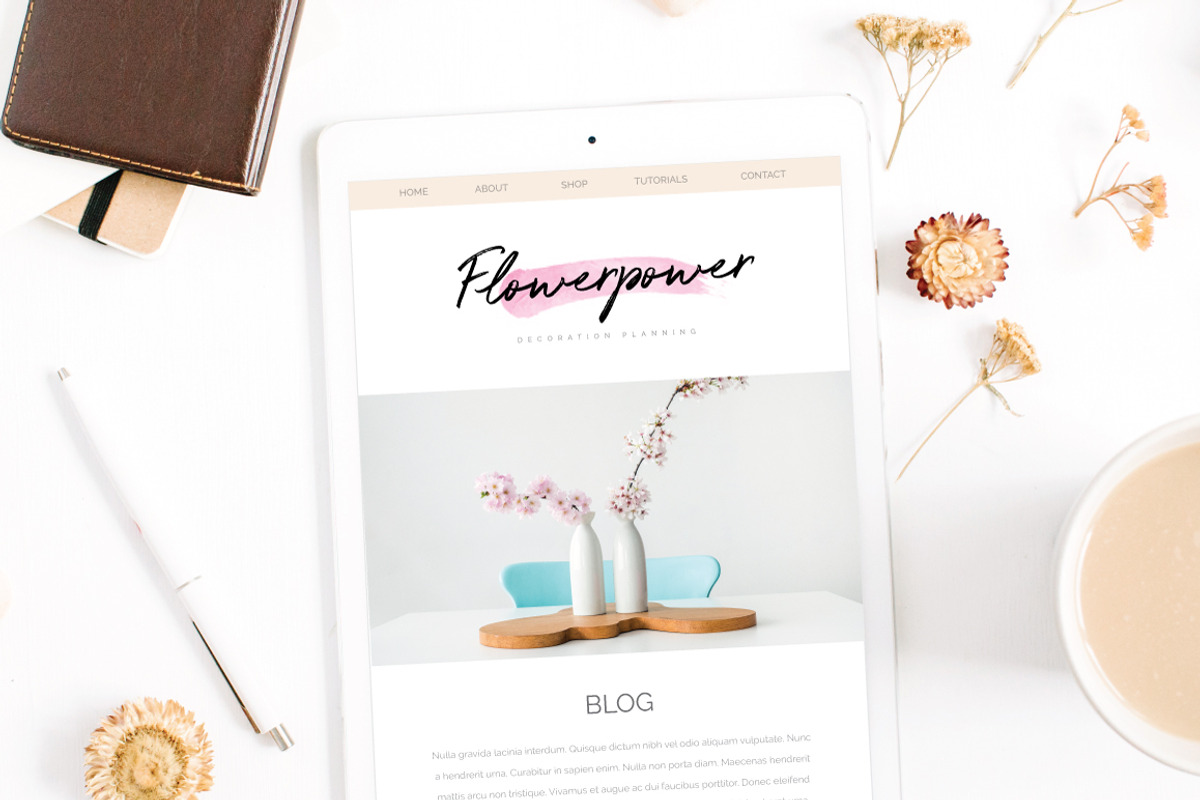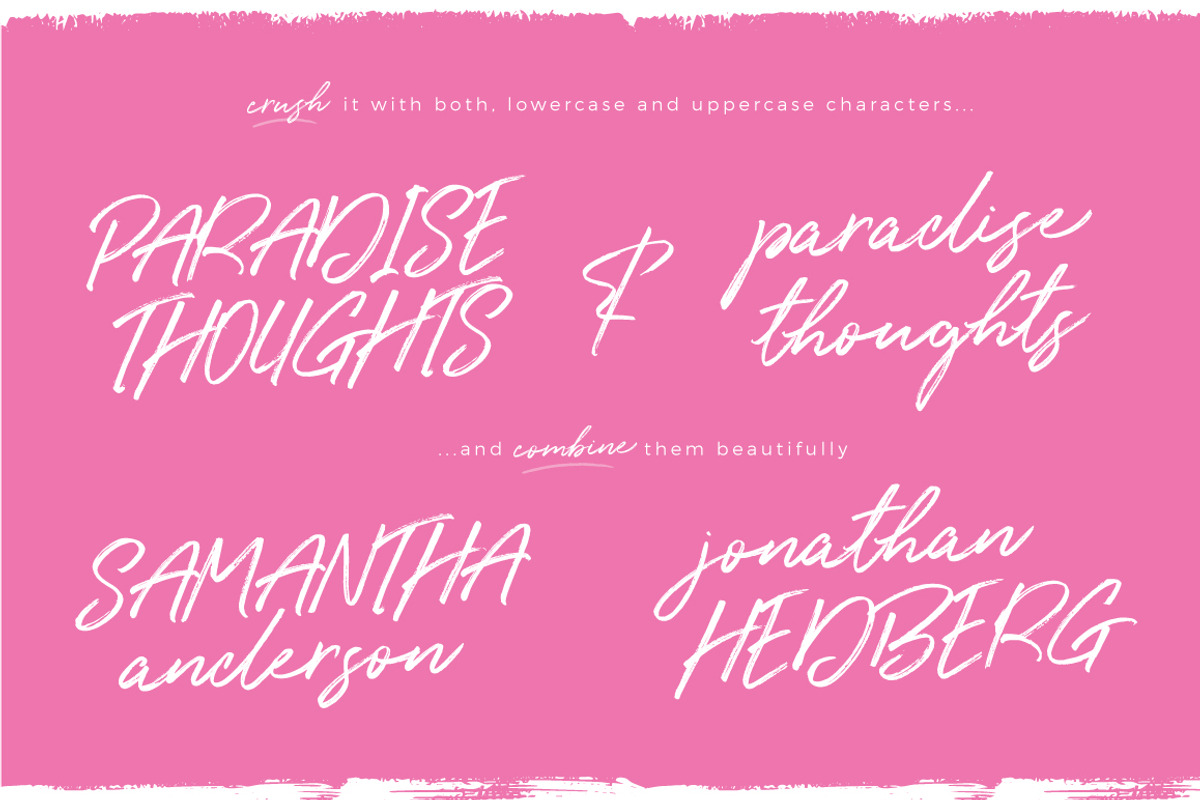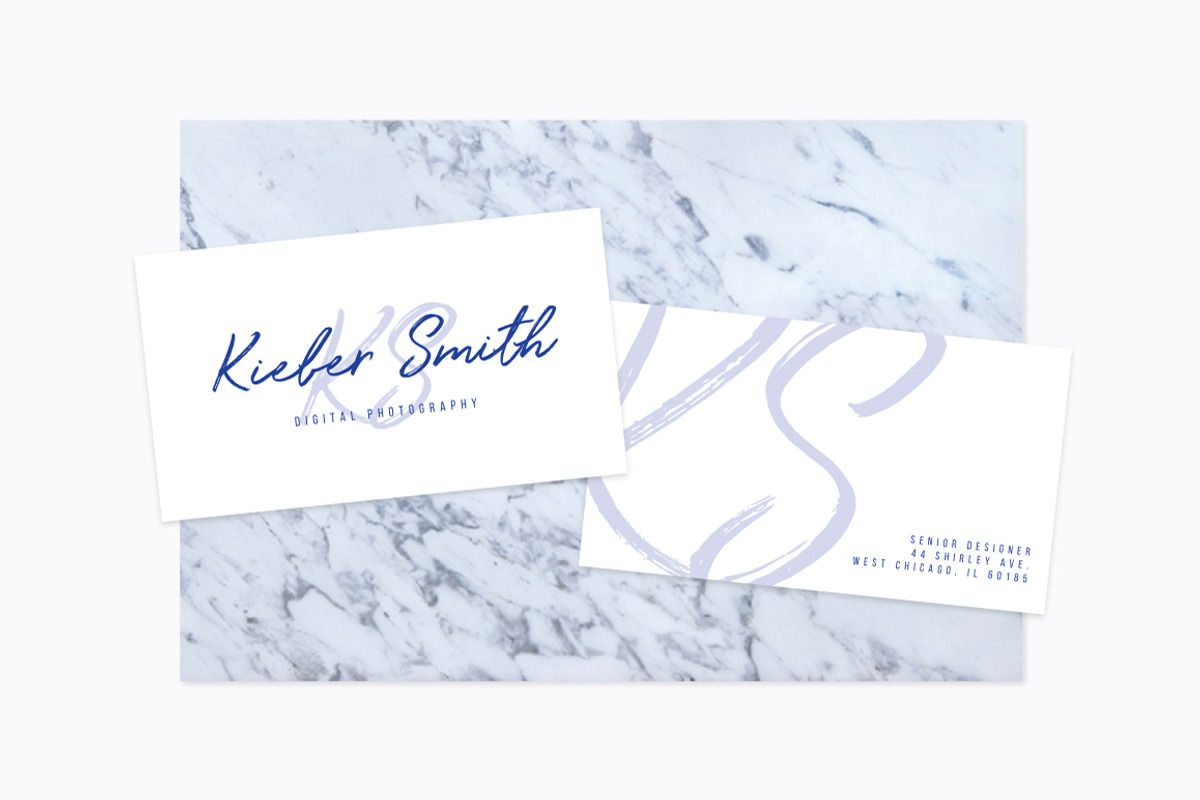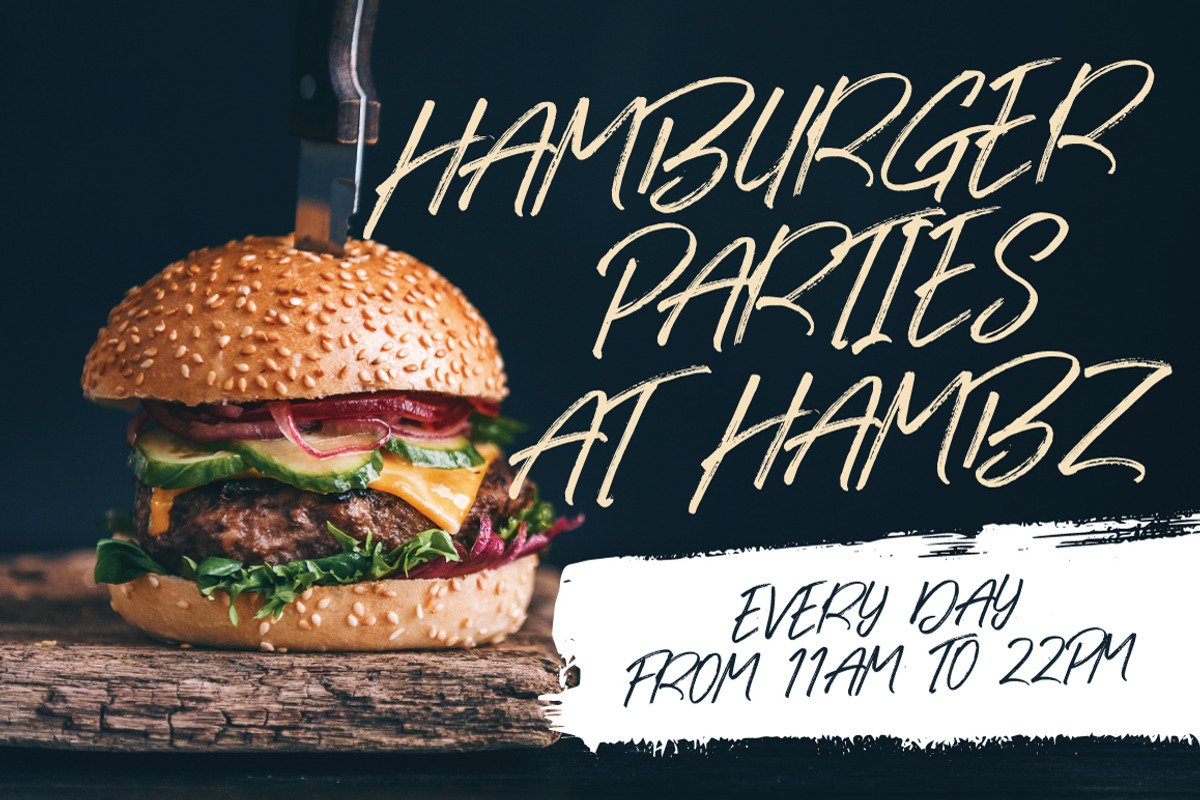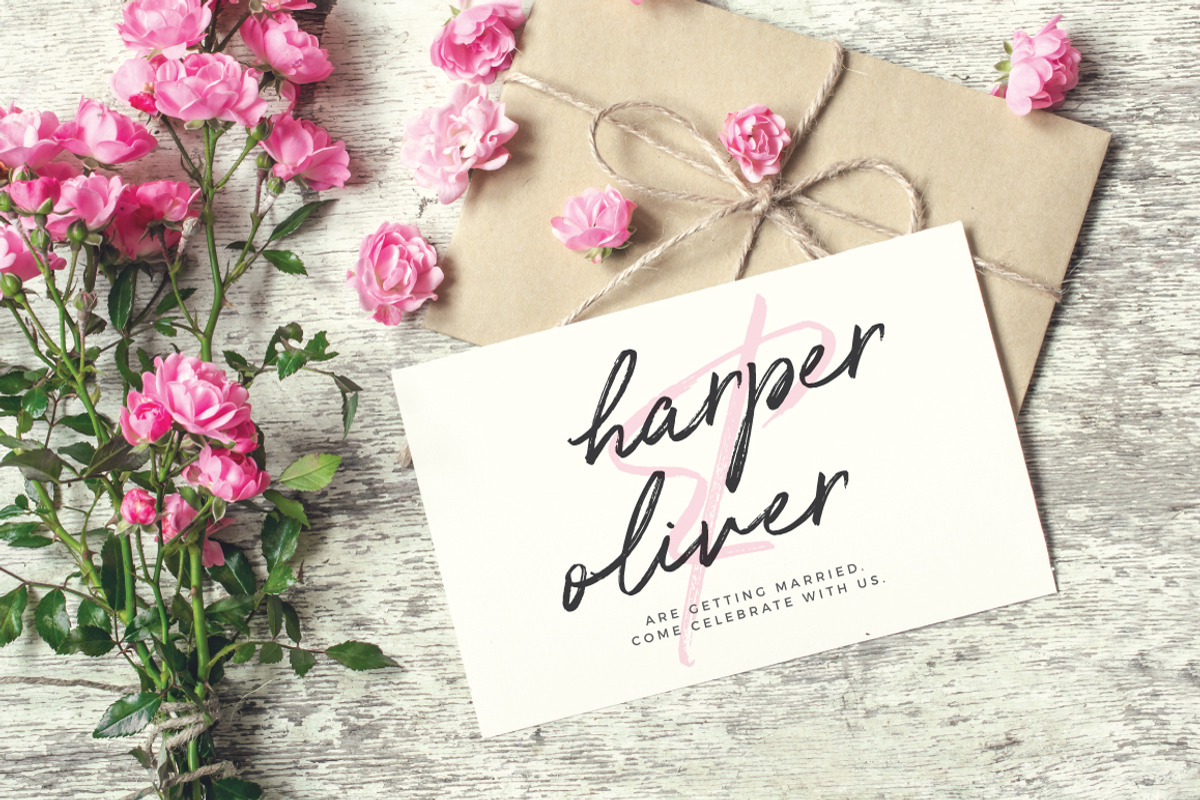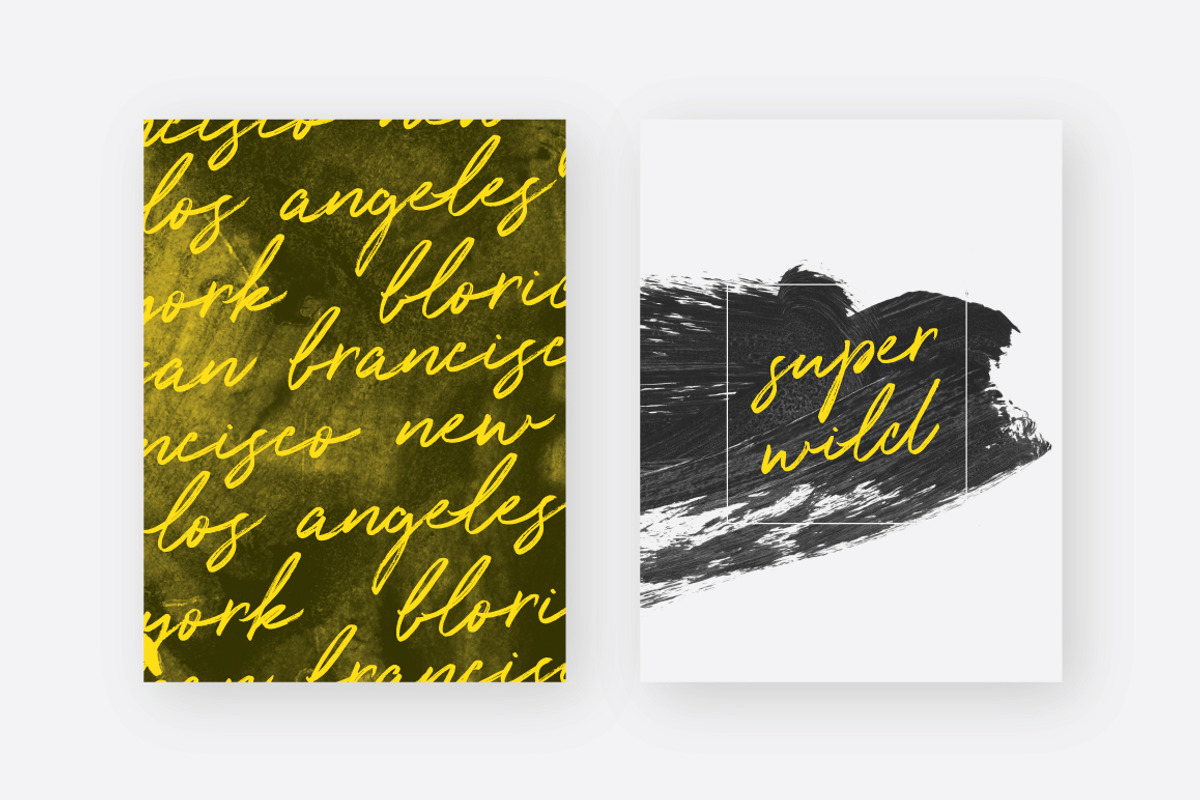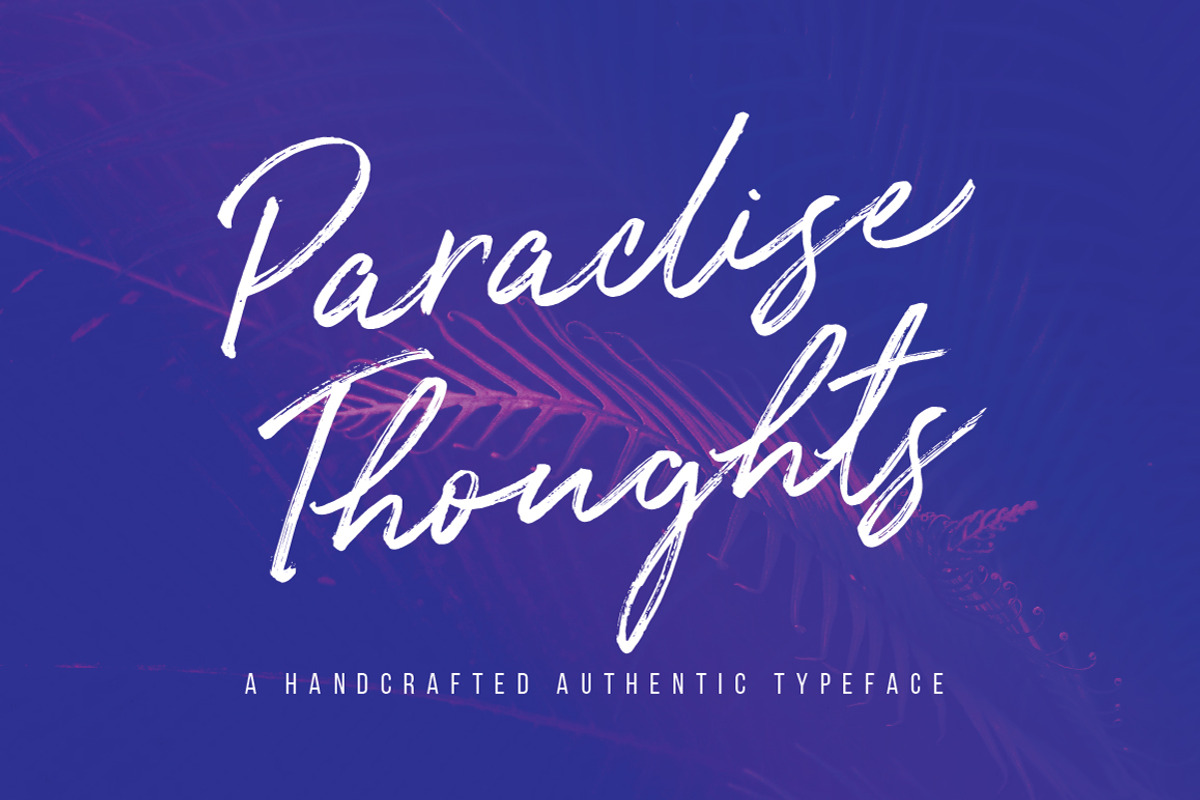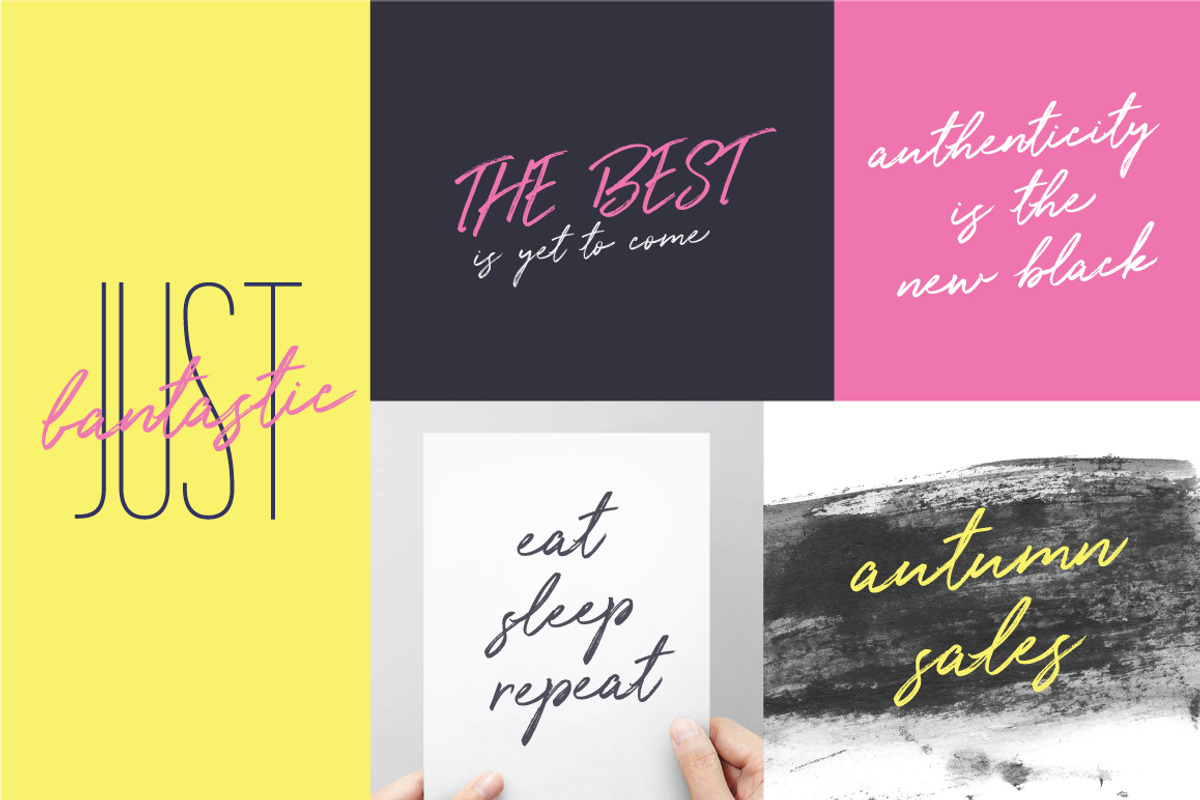
Paradise Thoughts Typeface
Paradise Thoughts Typeface by Mats-Peter Forss is a font selected for branding, posters, packaging, typography.
- The pack includes alternates for lowercase characters to make it look like freshly hand written.
- Alternates for lowercase characters.
Why Paradise Thoughts Typeface is worth a look
Paradise Thoughts Typeface by Mats-Peter Forss fits naturally into Branding, posters, packaging, typography.